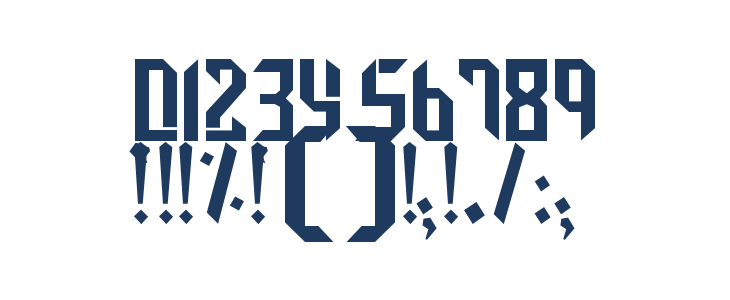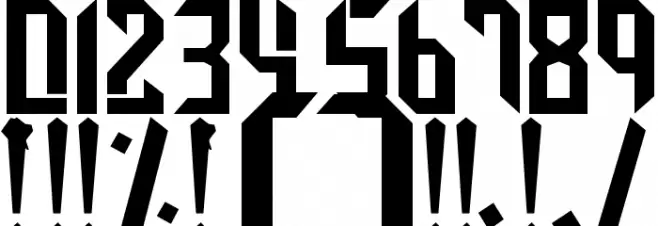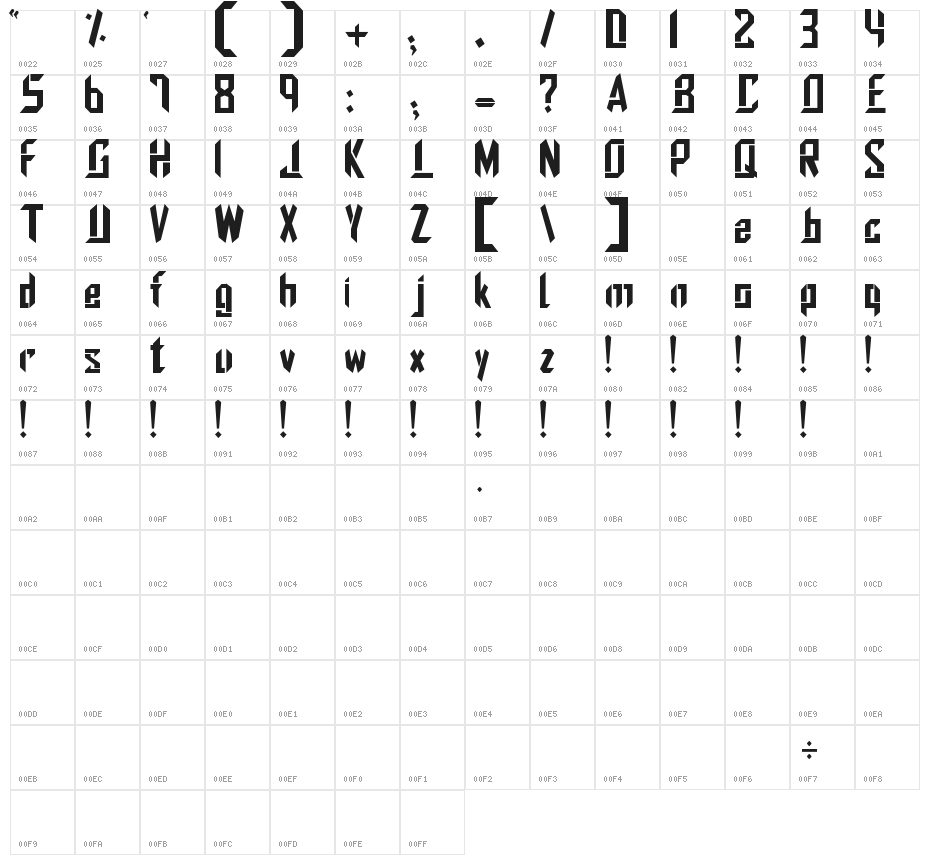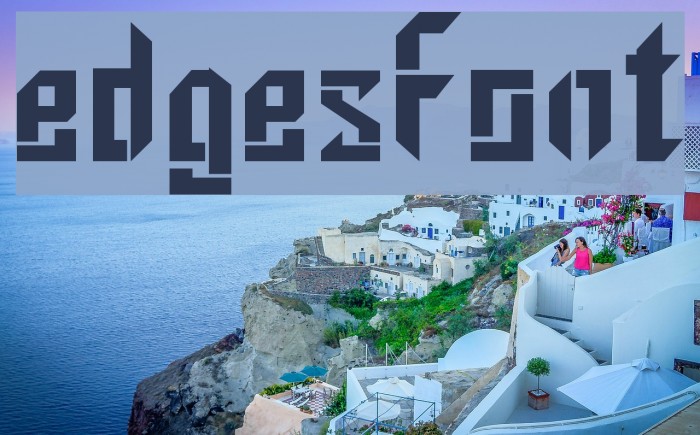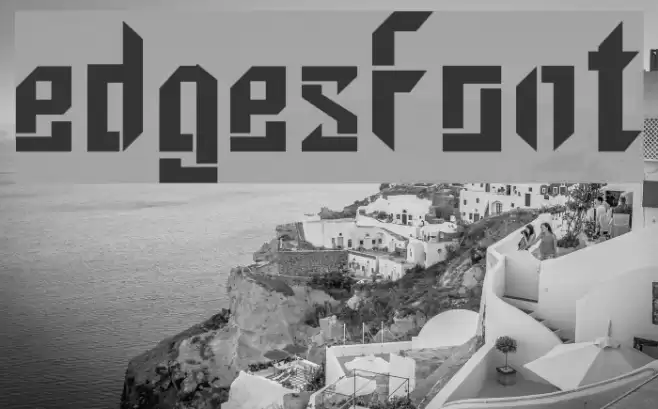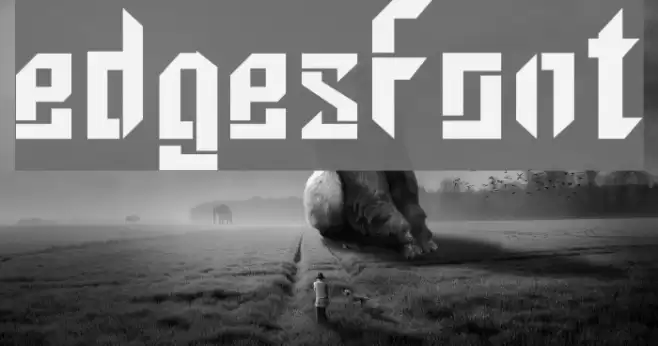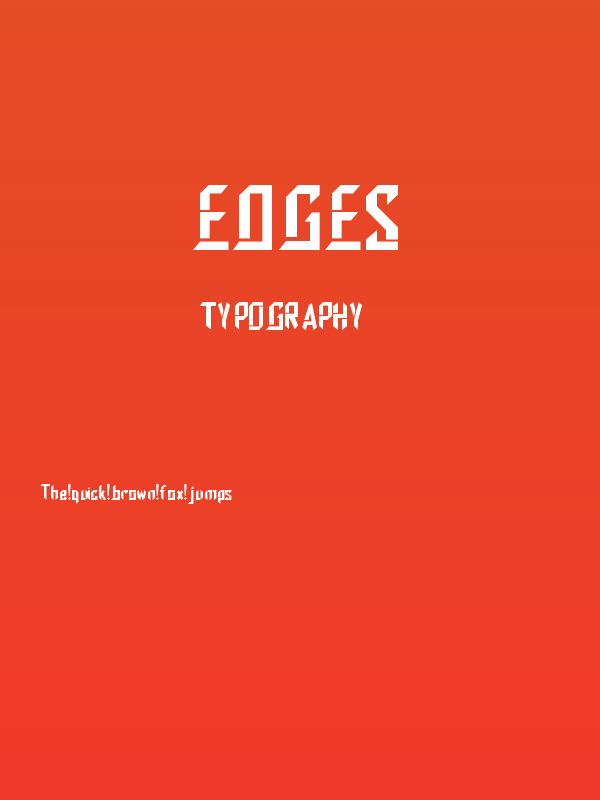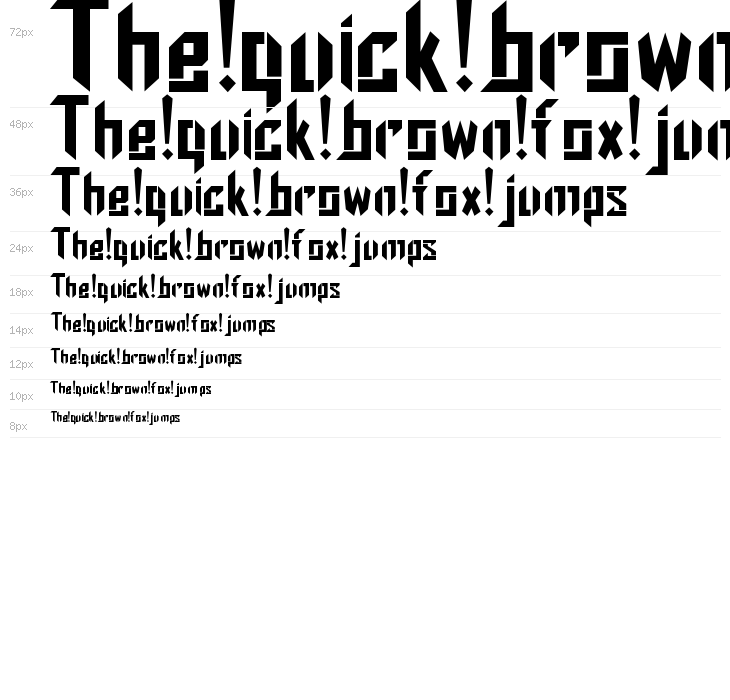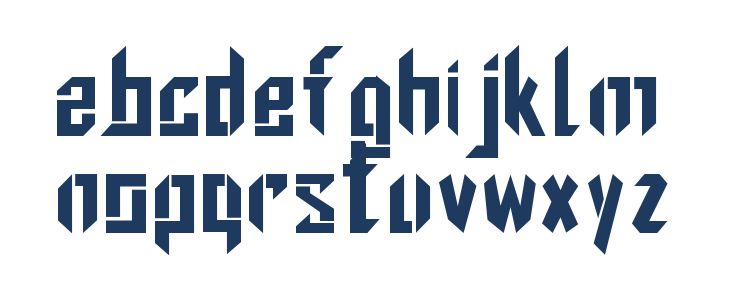
edges Font
edges Description
This font features a bold, geometric design with sharp angles and a distinct, edgy appearance. The characters are constructed with a combination of straight lines and acute angles, giving them a futuristic and aggressive look. The uppercase letters are particularly striking, with a blocky and robust form that commands attention. The lowercase letters maintain the same angular style, ensuring consistency throughout the typeface. Numbers and special characters are designed to match the overall aesthetic, making this font suitable for projects that require a strong, modern, and unconventional style.
| Proposed Projects | Ideal for branding, posters, album covers, and video game graphics. |